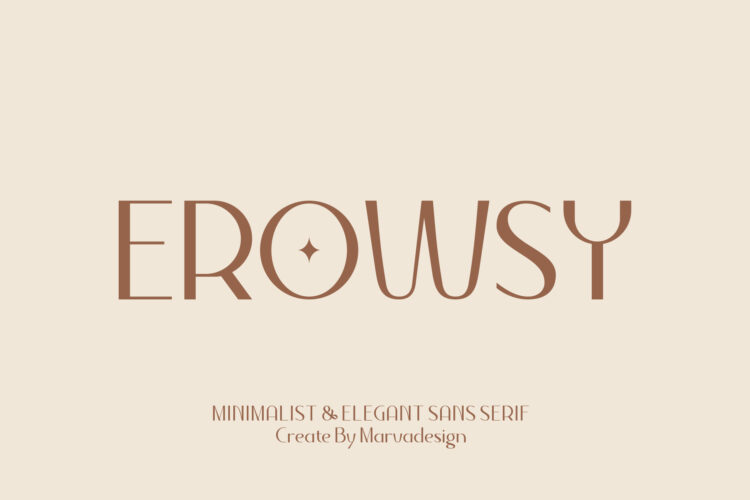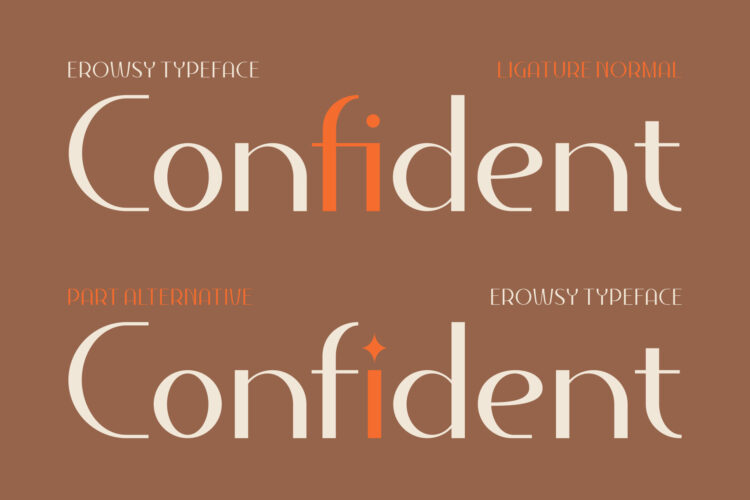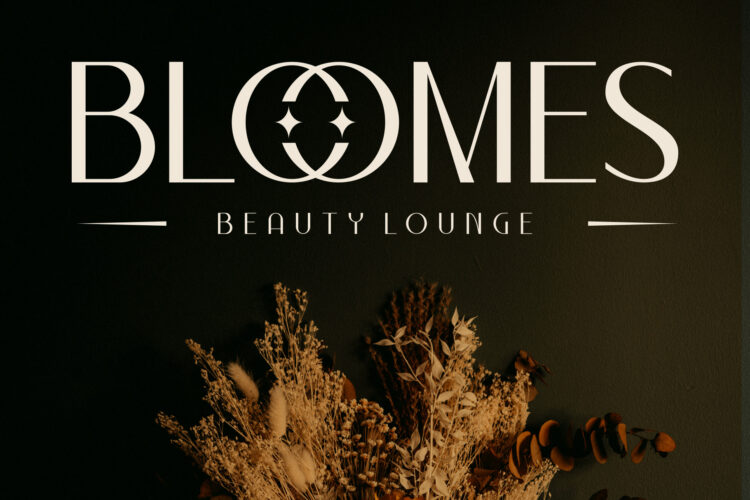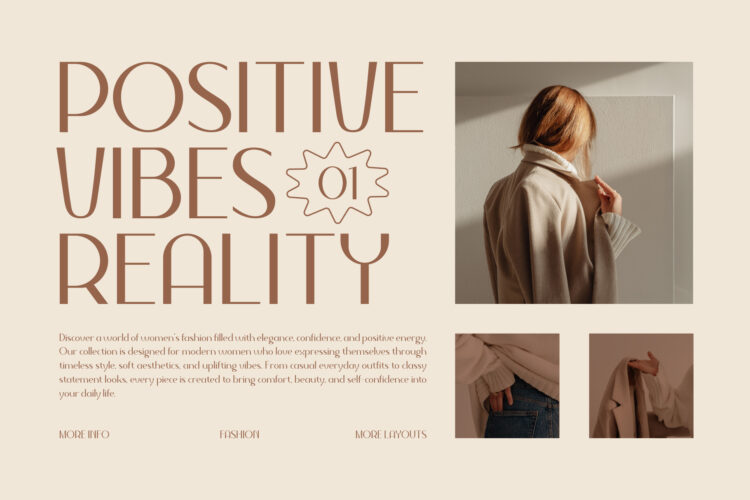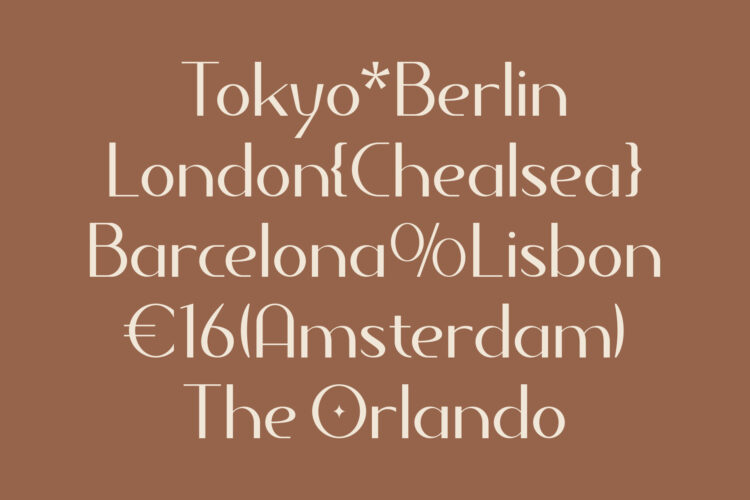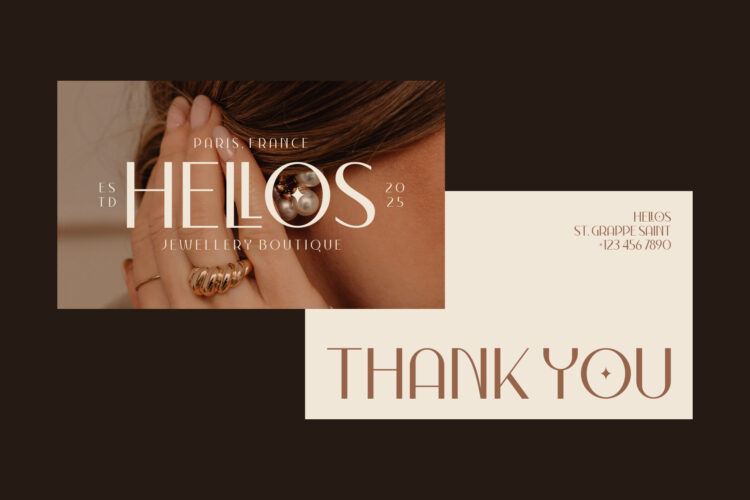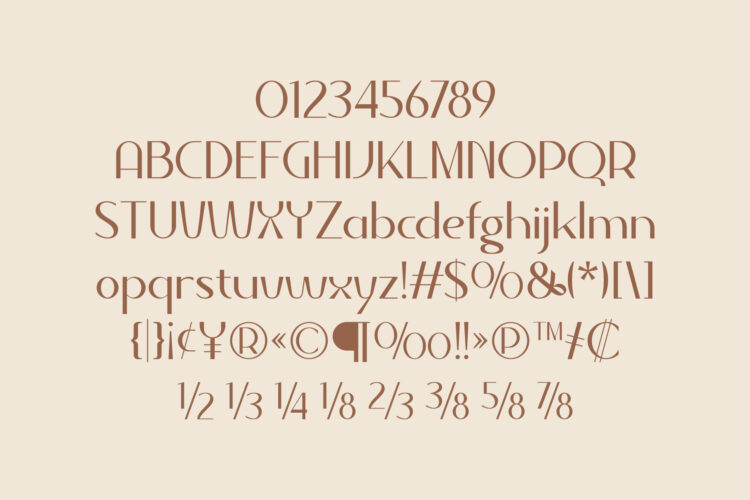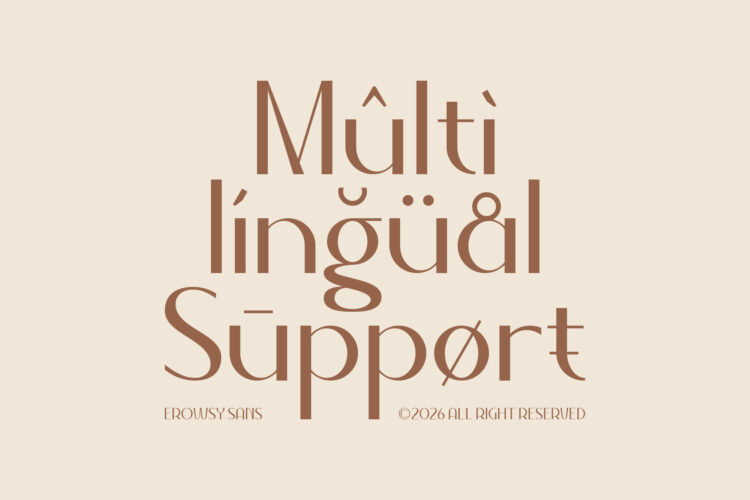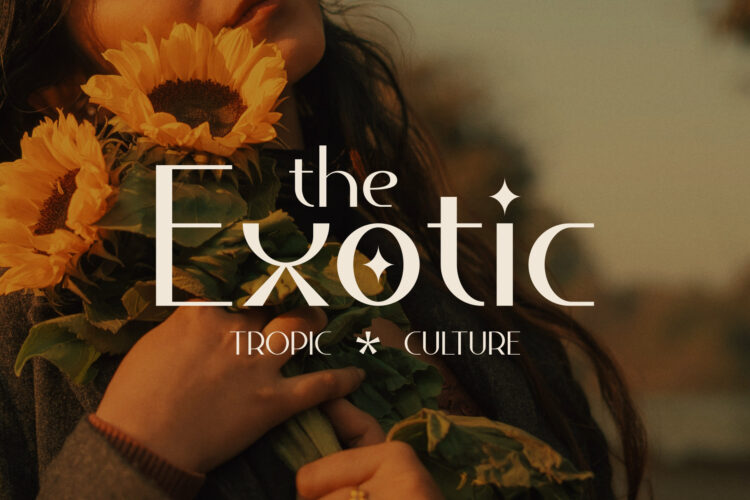
Erowsy is a minimalist and elegant sans serif typeface crafted with a graceful balance between modern sophistication and artistic expression. Its tall, slender letterforms and refined curves create a luxurious visual rhythm that feels both delicate and confident. The font carries a soft contemporary aesthetic while maintaining a timeless character, making it ideal for fashion branding, beauty editorials, boutique logos, lifestyle magazines, jewelry packaging, and modern feminine designs.
What makes Erowsy distinctive is its creative use of ligatures, alternates, and decorative symbols that seamlessly blend into the typography. The smooth geometric structure is enhanced by subtle artistic details, giving every word a stylish and premium appearance without feeling excessive. Its clean spacing and elegant proportions allow the typeface to remain highly readable while still delivering a strong visual identity.
Erowsy also embodies a warm and calming atmosphere through its graceful strokes and balanced composition. Whether placed on soft neutral palettes, luxurious dark backgrounds, or editorial layouts, the font naturally creates an aesthetic that feels chic, romantic, and modern. The combination of minimalist construction and decorative personality makes it versatile for both bold headlines and sophisticated branding applications.
Designed for creatives who appreciate refined typography, Erowsy offers a harmonious blend of simplicity and uniqueness. It brings a fashionable and artistic touch to every composition, transforming ordinary text into a visually captivating statement filled with elegance, softness, and modern luxury.